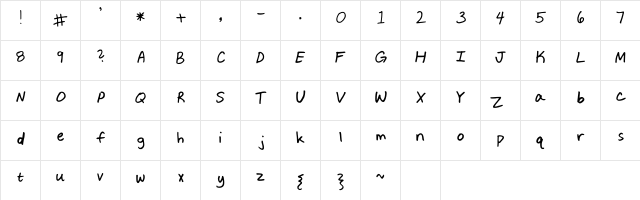
Keanas Sharpie Font Regular
Design Context for Keanas Sharpie Font Typeface
Keanas Sharpie Font is a composed and adaptable typeface that performs quietly and consistently across a wide range of design contexts.